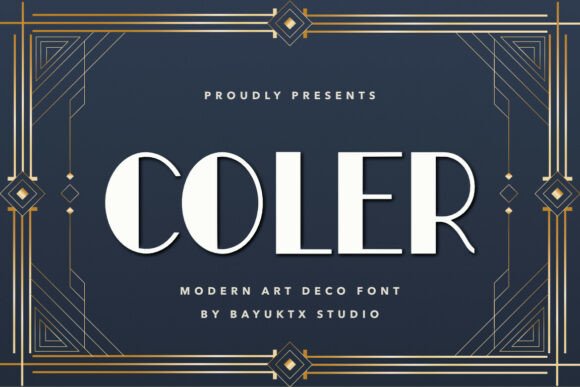
Introducing Coler Art Deco Font: Timeless Glamour for Modern Creatives
Are you looking for a typeface that exudes sophistication, luxury, and classic elegance? Look no further than Coler Art Deco Font, a stunning font inspired by the golden age of Art Deco design. With its geometric balance, elegant lines, and luxurious letterforms, Coler brings a sense of timeless glamour and modern refinement to any creative project.
The Art Deco Era: A Golden Age of Design
The Art Deco era, which spanned from the 1920s to the 1940s, was a time of great creativity and innovation in design. Characterized by its use of geometric shapes, metallic materials, and ornate decorations, Art Deco influenced a wide range of artistic fields, from architecture and fashion to typography and graphic design.
During this period, designers sought to create a modern, luxurious aesthetic that reflected the glamour and sophistication of the era. They drew inspiration from ancient cultures, such as Egypt and Mesopotamia, as well as from modern technologies, like aviation and cinema.
The result was a distinctive style that was both bold and elegant, structured and stylish. And it’s this style that Coler Art Deco Font perfectly captures, bringing the essence of 1920s elegance to modern design.
Coler Art Deco Font: A Sophisticated Typeface
Coler Art Deco Font is a sophisticated typeface that embodies the spirit of Art Deco design. With its geometric balance, elegant lines, and luxurious letterforms, this font is perfect for creative projects that require a touch of classic luxury and architectural beauty.
Each curve and line in Coler is carefully crafted to evoke confidence, sophistication, and artistic precision. The font features a range of elegant lines, from the flowing curves of the lowercase letters to the bold, geometric shapes of the uppercase letters.
Whether you’re designing a logo, branding materials, invitations, or editorial titles, Coler Art Deco Font is the perfect choice. Its timeless glamour and modern refinement make it suitable for a wide range of applications, from high-end fashion and hospitality to luxury goods and services.
Key Features of Coler Art Deco Font
- Geometric balance: Coler Art Deco Font features a perfectly balanced geometric design, with each letterform carefully crafted to create a sense of harmony and stability.
- Elegant lines: The font’s elegant lines and curves evoke a sense of sophistication and luxury, making it perfect for high-end designs.
- Luxurious letterforms: Each letterform in Coler is designed to convey a sense of luxury and refinement, with intricate details and ornate decorations.
- Timeless glamour: Coler Art Deco Font embodies the timeless glamour of the Art Deco era, making it perfect for designs that require a touch of classic elegance.
- Modern refinement: Despite its classic inspiration, Coler is a modern font that brings a sense of refinement and sophistication to any design.
Using Coler Art Deco Font in Your Designs
Coler Art Deco Font is a versatile typeface that can be used in a wide range of design applications. Here are a few ideas to get you started:
- Logos and branding: Use Coler to create a luxurious and sophisticated brand identity that reflects your company’s values and personality.
- Invitations and events: Add a touch of elegance and glamour to your invitations, wedding stationery, and event materials with Coler Art Deco Font.
- Editorial titles: Use Coler to create stunning editorial titles that evoke the classic luxury and sophistication of the Art Deco era.
- Packaging and advertising: Coler is perfect for packaging and advertising designs that require a touch of high-end elegance and refinement.
Why Choose Coler Art Deco Font?
With so many fonts available, why choose Coler Art Deco Font? Here are a few reasons:
- Unique and distinctive: Coler is a unique and distinctive font that will set your designs apart from the crowd.
- High-quality design: Each curve and line in Coler is carefully crafted to ensure a high-quality design that reflects your brand’s values and personality.
- Versatile: Coler is a versatile font that can be used in a wide range of design applications, from logos and branding to editorial titles and packaging.
- Timeless: Coler Art Deco Font is a timeless font that will never go out of style, making it a great investment for any designer or brand.
In conclusion, Coler Art Deco Font is a sophisticated typeface that embodies the spirit of Art Deco design. With its geometric balance, elegant lines, and luxurious letterforms, this font brings a sense of timeless glamour and modern refinement to any creative project.
Whether you’re designing a logo, branding materials, invitations, or editorial titles, Coler Art Deco Font is the perfect choice. Its unique and distinctive design, high-quality craftsmanship, and versatility make it a great addition to any designer’s toolkit.